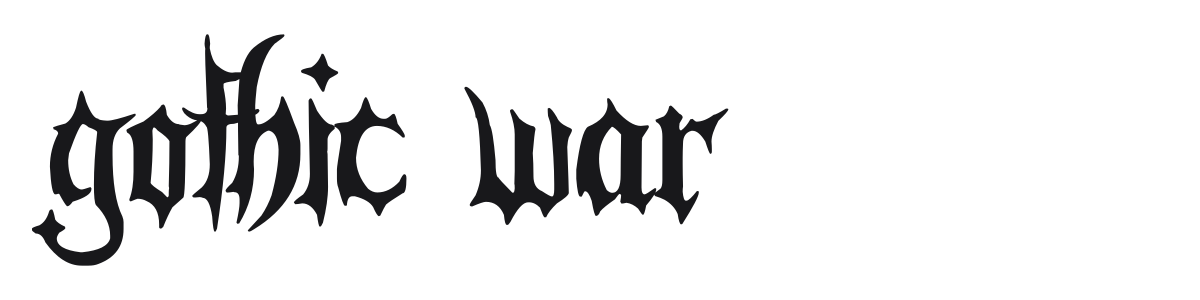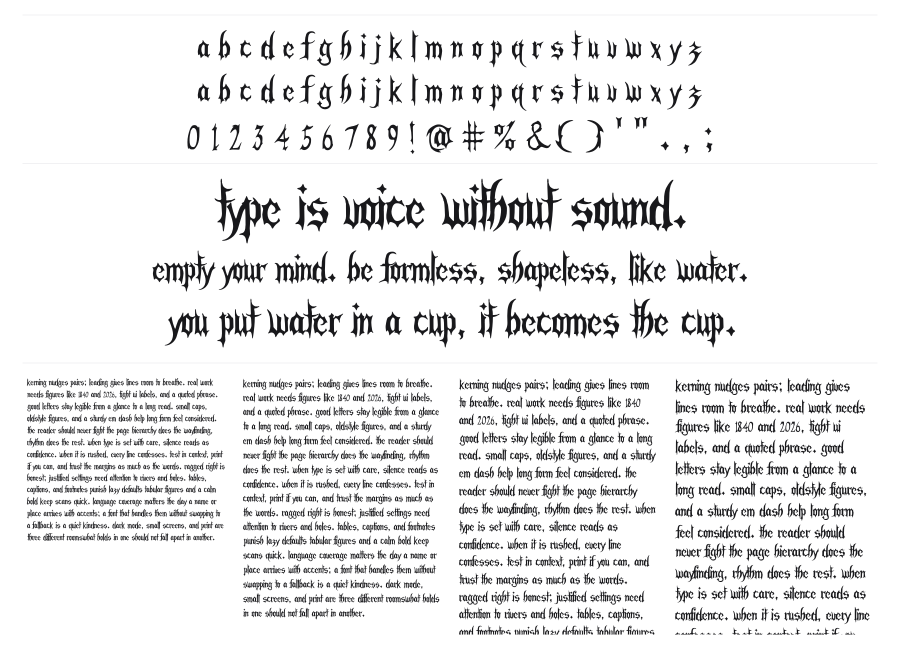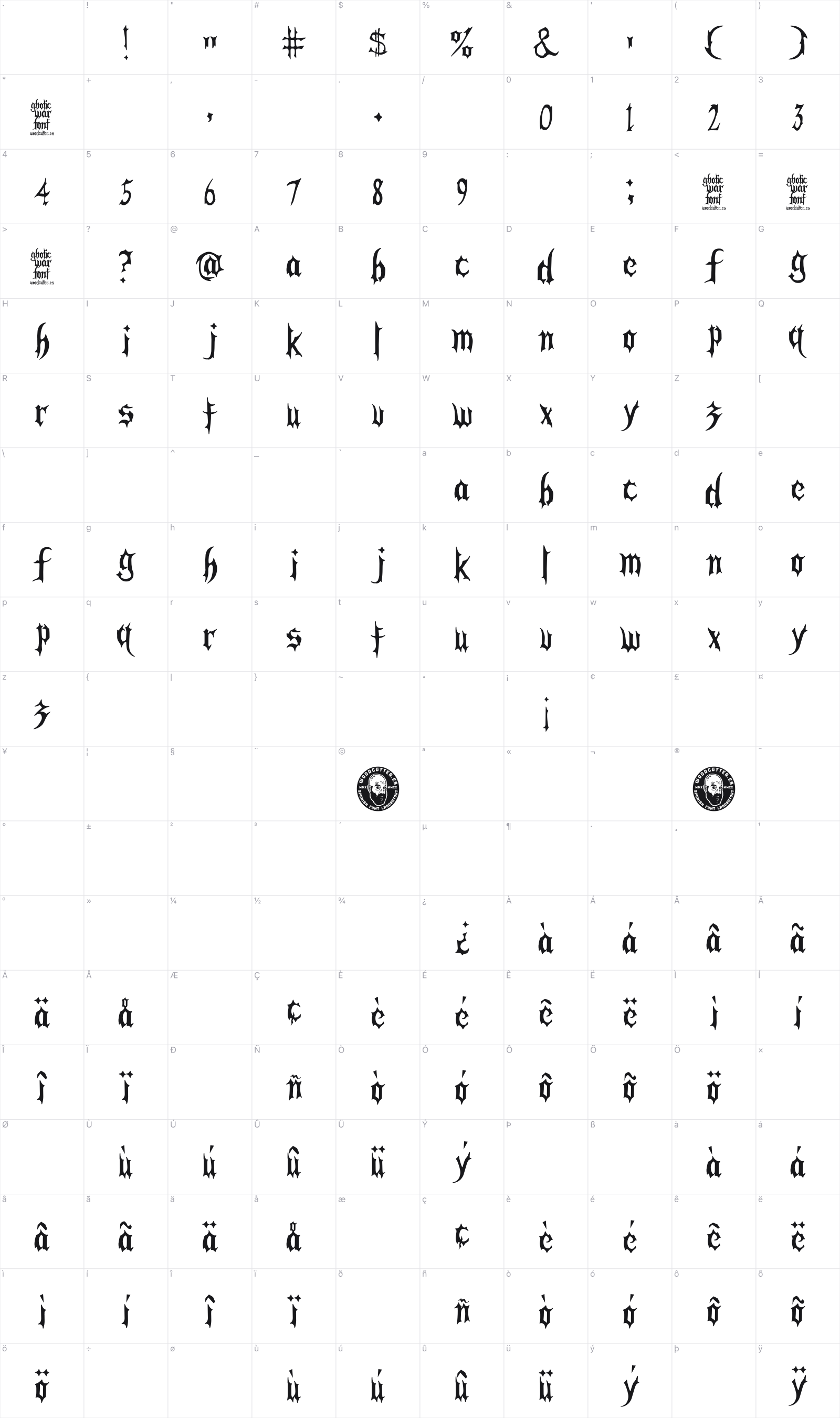
Gothic War
Gothic War is a heavy blackletter display font from Woodcutter with bold strokes, sharp pointed terminals, and dramatic high contrast. It pushes classic Gothic texture construction toward something more aggressive and contemporary, landing it squarely in metal, gaming, and dark entertainment territory. The wide, weighty characters command attention at large sizes.